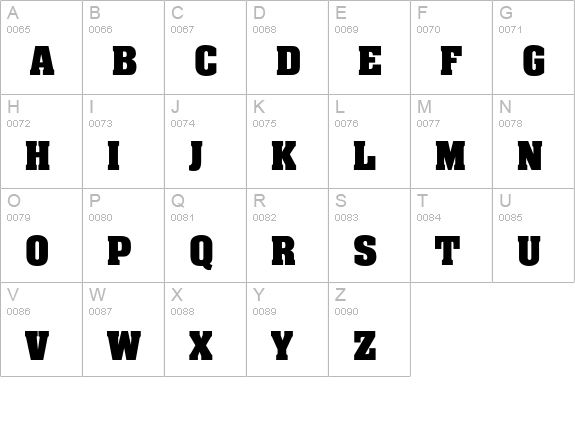
Nijmwegen Font Details
Nijmwegen is a sophisticated and elegant font that exudes a timeless charm and modern sophistication. Its sleek lines and flowing curves make it perfect for a wide range of design projects, from branding to editorial design. This versatile font is sure to add a touch of class to any project it is used in. The best part? Nijmwegen is completely free to download at FontsMarket.com! This means you can start using this stunning font in your designs right away, without having to worry about any additional costs. Don't miss out on the opportunity to add Nijmwegen to your font collection today and elevate your designs to new heights.